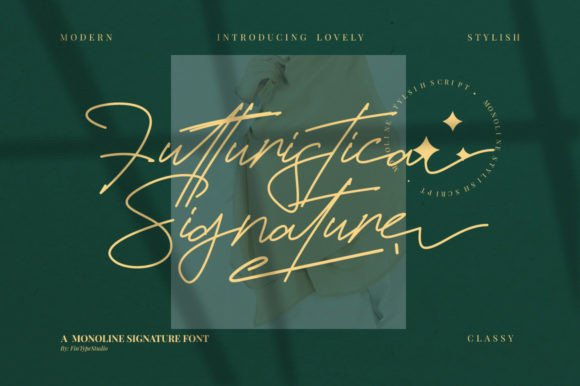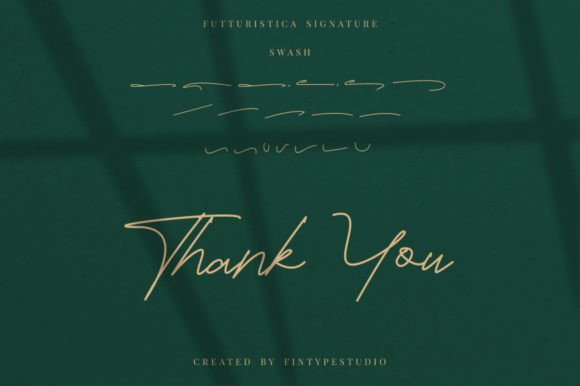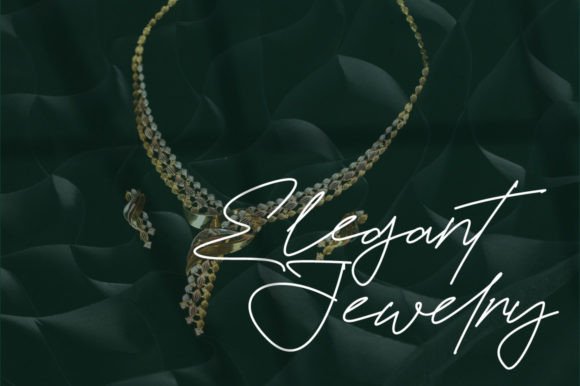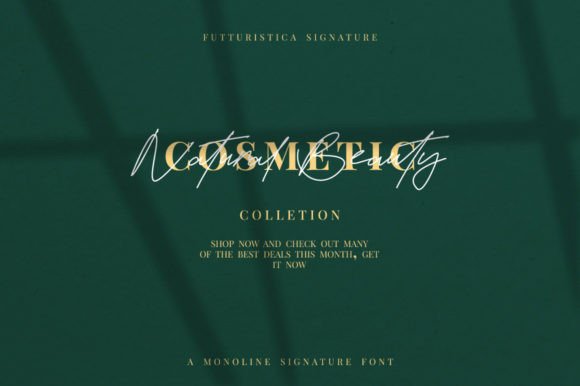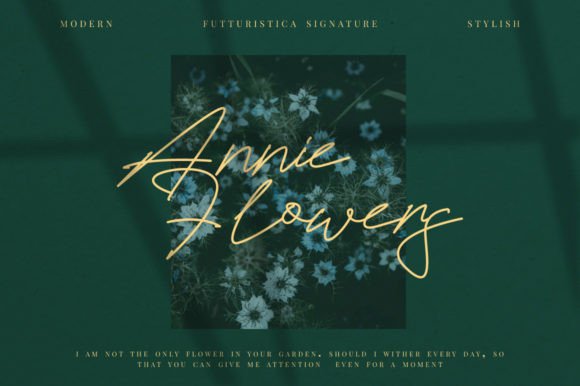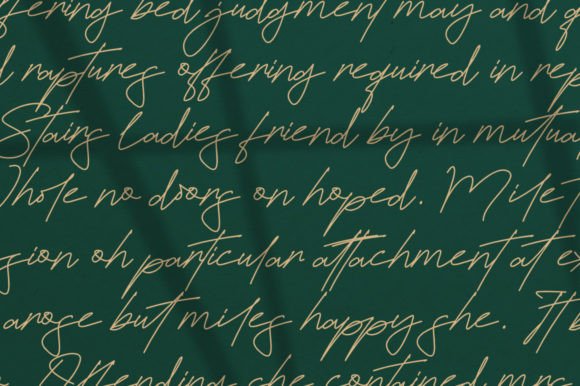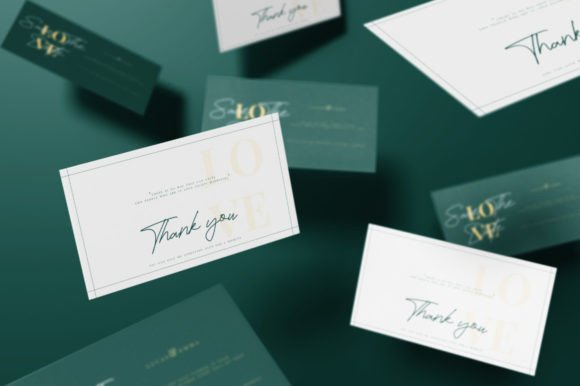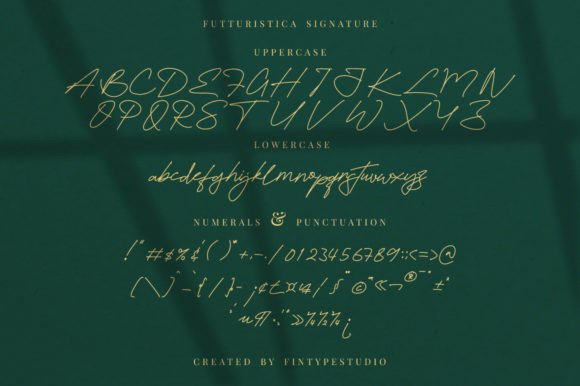
Futturistica Signature Font
About Futturistica Signature Font
The Futturistica Signature Font Download is an enchanting handwritten script that blends elegance with a romantic look. As a result, it can bring warmth and charm to many projects. Whether you are designing wedding invitations, making greeting cards, or creating brand logos, this font adds a polished and stylish touch.
Moreover, Futturistica Signature has been carefully crafted with flowing strokes that look both modern and timeless. In addition, it is PUA encoded, which means you can access all of its glyphs, swashes, and ligatures with ease. Therefore, you can customize your text quickly and create designs that feel personal and unique.
Features of Futturistica Signature Font
When you download the Futturistica Signature Font, you will enjoy:
• Elegant handwritten script with smooth curves
• Romantic style that adds personality to any design
• High readability in both small and large layouts
• Versatile design for digital, print, and craft projects
Best Uses for Futturistica Signature Font
The Futturistica Signature Font Download is perfect for many creative uses. For example, it works beautifully in:
• Wedding invitations and stationery – Create romantic and lasting designs
• Thank you and greeting cards – Add elegance with a personal style
• Logos and branding – Ideal for fashion, lifestyle, or boutique brands
• Headlines and posters – Stylish text that stands out easily
• Social media graphics – Eye-catching posts for Instagram or Pinterest
• DIY projects – Give crafts and handmade designs a charming look
Why Choose Futturistica Signature Font
The Futturistica Signature Font Download is more than a script—it is a creative tool. Unlike generic handwritten fonts, it combines beauty with usability. In addition, it adapts to both personal and professional designs. Because of its romantic look and smooth strokes, your work will always feel elegant and refined.
In conclusion, the Futturistica Signature Font Download is a must-have for designers who want a handwritten script that is both elegant and versatile. It suits everything from invitations and logos to social media posts.